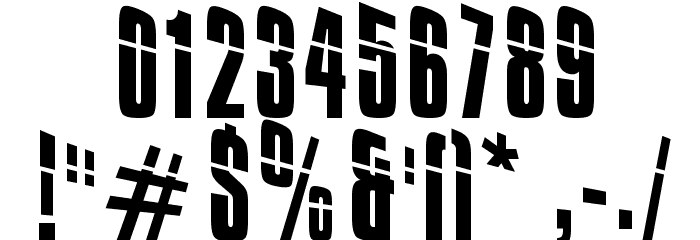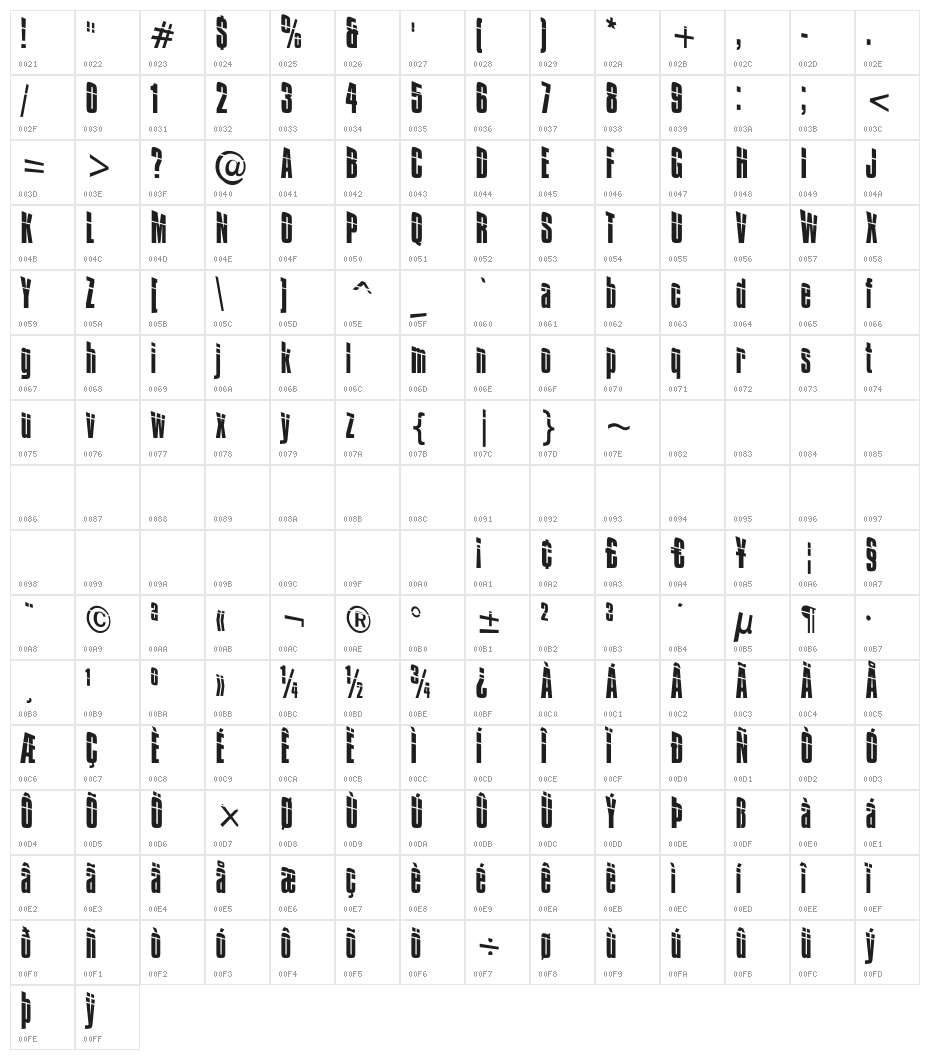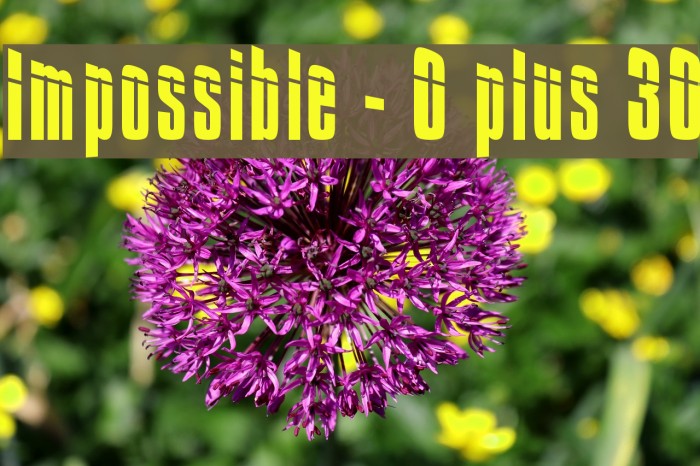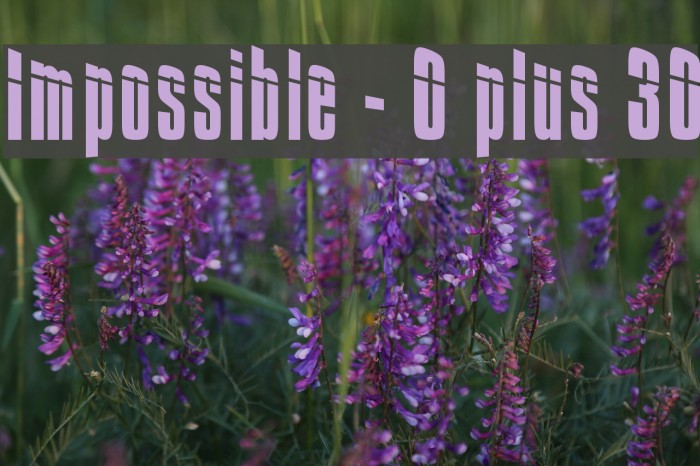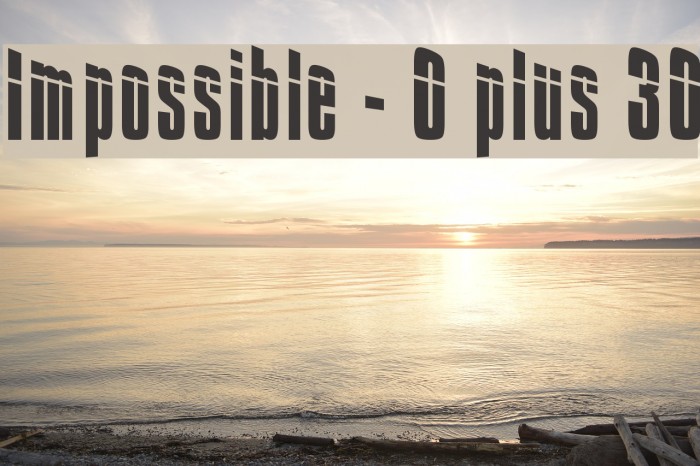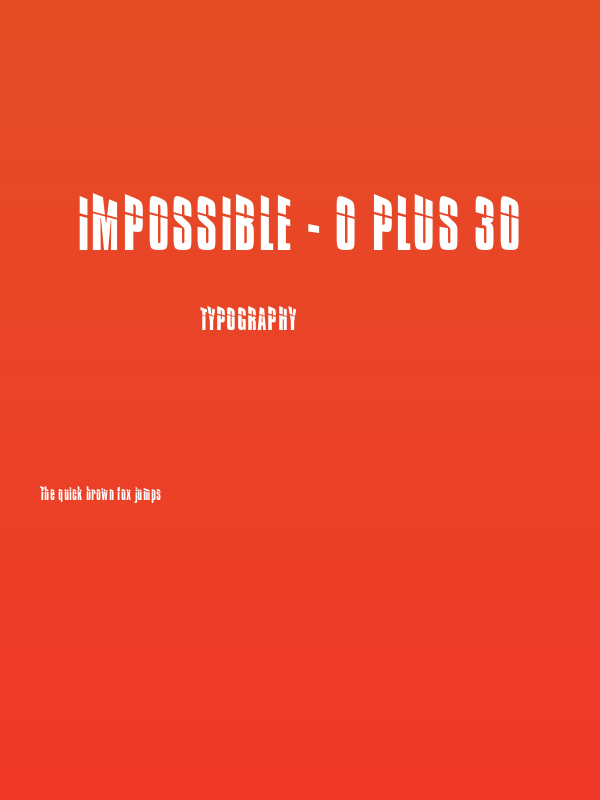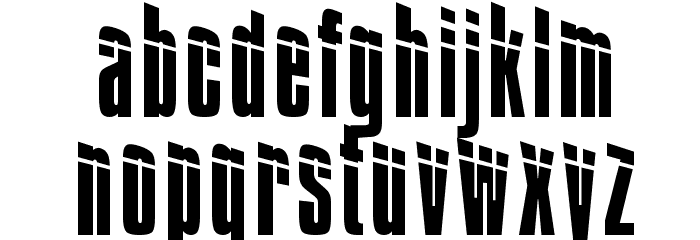
Impossible - 0 plus 30 Font
Impossible - 0 plus 30 Description
This font features a bold, condensed style with a striking presence. The uppercase and lowercase letters are designed with a high contrast between thick and thin strokes, creating a dynamic and impactful look. The characters are slightly slanted, adding a sense of movement and energy. The numbers and special characters maintain the same boldness, ensuring consistency across all elements. The font's unique design makes it ideal for attention-grabbing headlines and titles. Its modern aesthetic is suitable for contemporary projects that require a strong visual impact.
| Proposed Projects | Ideal for posters, headlines, branding, and advertising materials that require a strong visual impact. |